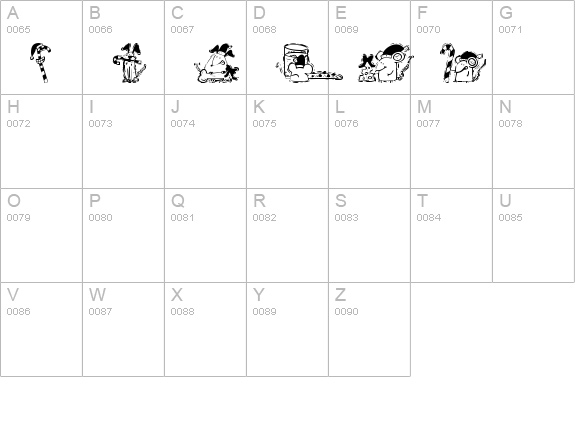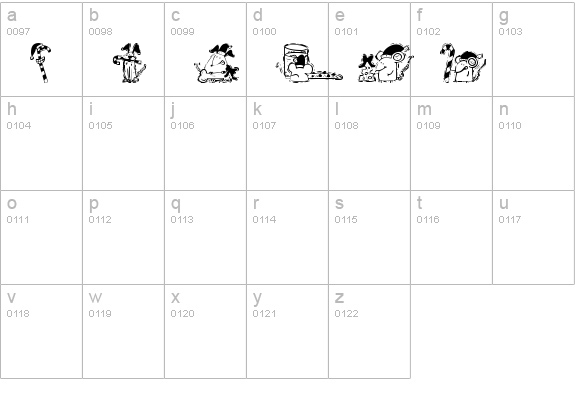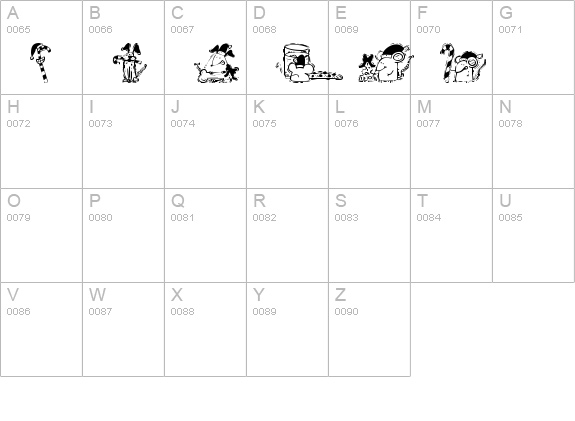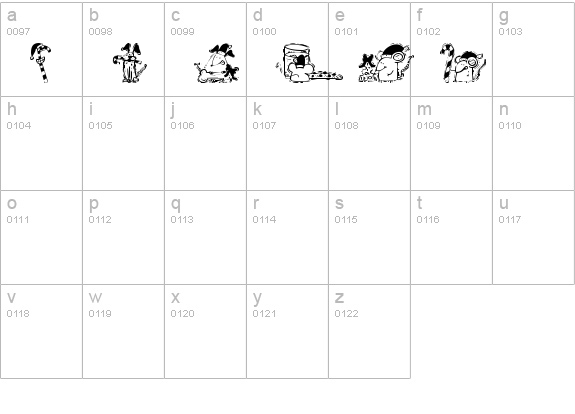
KR Christmas 2002 Dings 3 Font Details
KR Christmas 2002 Dings 3 font is a festive and whimsical typeface perfect for adding a touch of holiday cheer to your designs. With a collection of Christmas-themed symbols and decorations, this font is sure to bring joy to your projects. Whether you're creating greeting cards, party invitations, or holiday posters, KR Christmas 2002 Dings 3 has got you covered. The best part? This delightful font is available for free download at FontsMarket.com. Embrace the spirit of the season and enhance your designs with this charming and playful font. Spread the holiday cheer with KR Christmas 2002 Dings 3 font today!